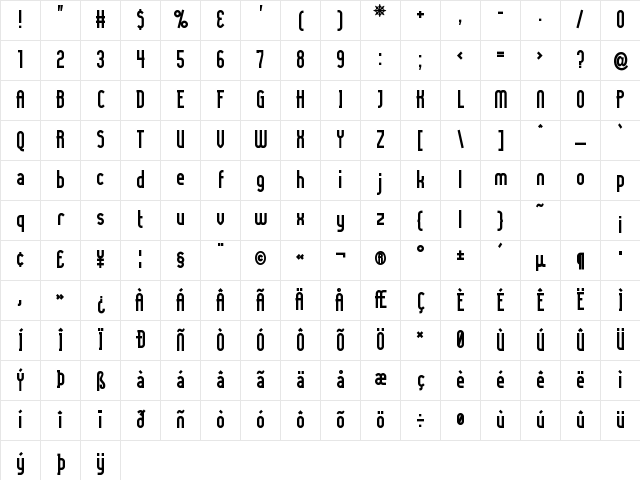
Lady Ice Bold Free Font
Lady Ice Bold
Designer: Graham Meade, CybaPee & Apostrophe
Design Context for Lady Ice
Lady Ice is a composed and adaptable typeface that performs quietly and consistently across a wide range of design contexts. Its bold stroke weight gives it real presence on the page.